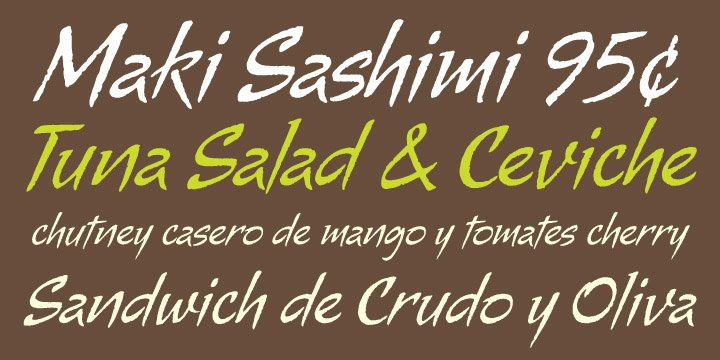
Alma Font
Alma Font is perfect for elegant branding projects, sophisticated marketing materials, cultural publications, boutique logos, premium product packaging, refined editorial design, upscale hospitality communications, and distinguished professional presentations.
Alma Font is exciting because it embodies soulful elegance with graceful letterforms and refined character details that create emotional resonance and sophisticated appeal. Its meaningful personality evokes depth and authenticity that resonates perfectly with audiences seeking genuine connections and heartfelt communication experiences.
Alma Font family includes regular weight with elegant alternates and sophisticated variations, providing designers with comprehensive options for creating refined typography solutions that project cultural depth and emotional authenticity.
Alma Font Free Download delivers premium sophisticated typography that establishes emotional authority and cultural credibility. This distinguished typeface demonstrates exceptional attention to meaningful detail through its graceful character construction and balanced proportions that enhance brand prestige while maintaining elegant readability. The font's soulful character makes it particularly suitable for cultural institutions, luxury brands, boutique businesses, and creative organizations seeking to establish refined visual identity that resonates with audiences appreciating depth and authentic sophistication.
Design professionals consistently choose Alma Font for projects requiring emotional authenticity and cultural appeal. Its graceful character works magnificently in cultural venues, luxury hospitality environments, boutique branding, and sophisticated marketing campaigns where emotional connection and refined personality drive audience engagement. The font's meaningful nature creates memorable brand experiences that communicate depth and genuine sophistication.
The Alma Font download package includes elegant alternates, sophisticated variations, and cultural symbols that enhance its refined appeal and design versatility. This comprehensive collection ensures professional results in sophisticated design projects requiring authentic elegant typography. The font performs exceptionally across both digital and print applications where its graceful details and meaningful proportions create significant emotional value and cultural distinction.
Creative teams appreciate Alma Font's ability to communicate emotional authenticity and cultural sophistication in competitive luxury markets. Its refined styling transcends superficial design trends while maintaining the depth required for meaningful positioning, making it an essential tool for organizations seeking to establish lasting emotional connections through superior sophisticated typography and exceptional heartfelt communication.